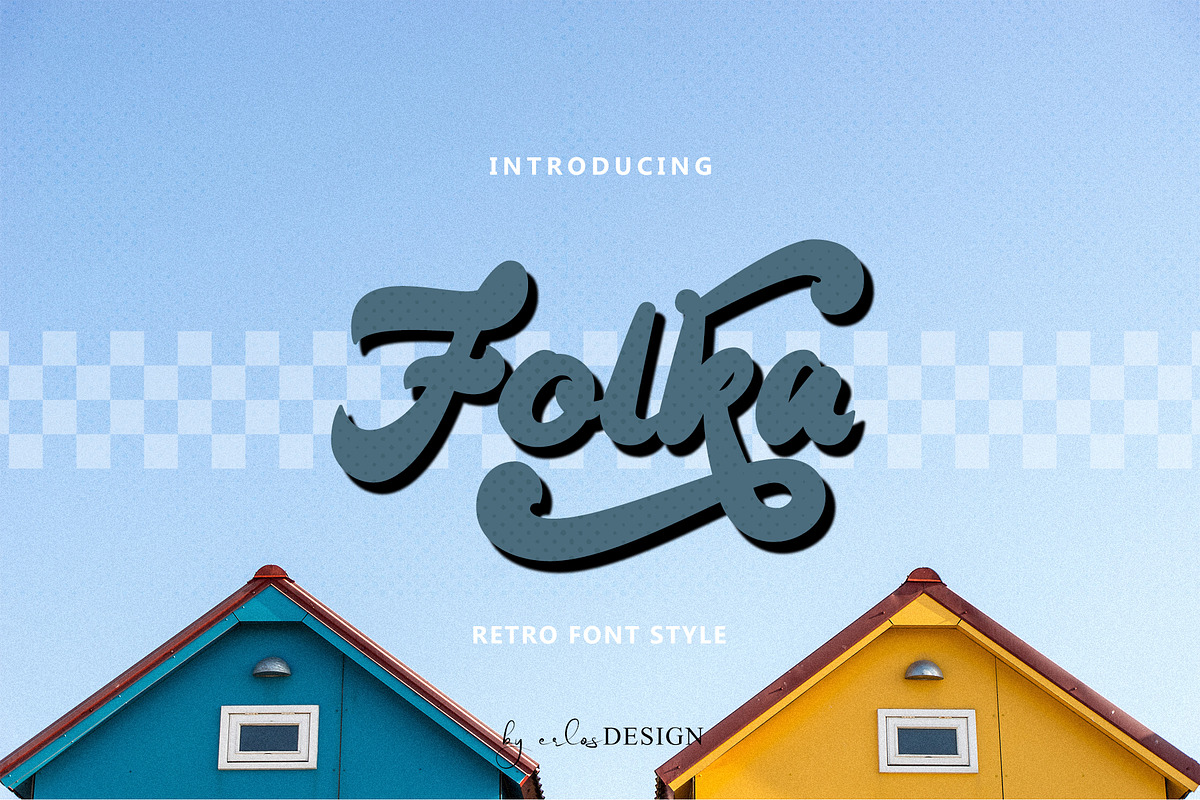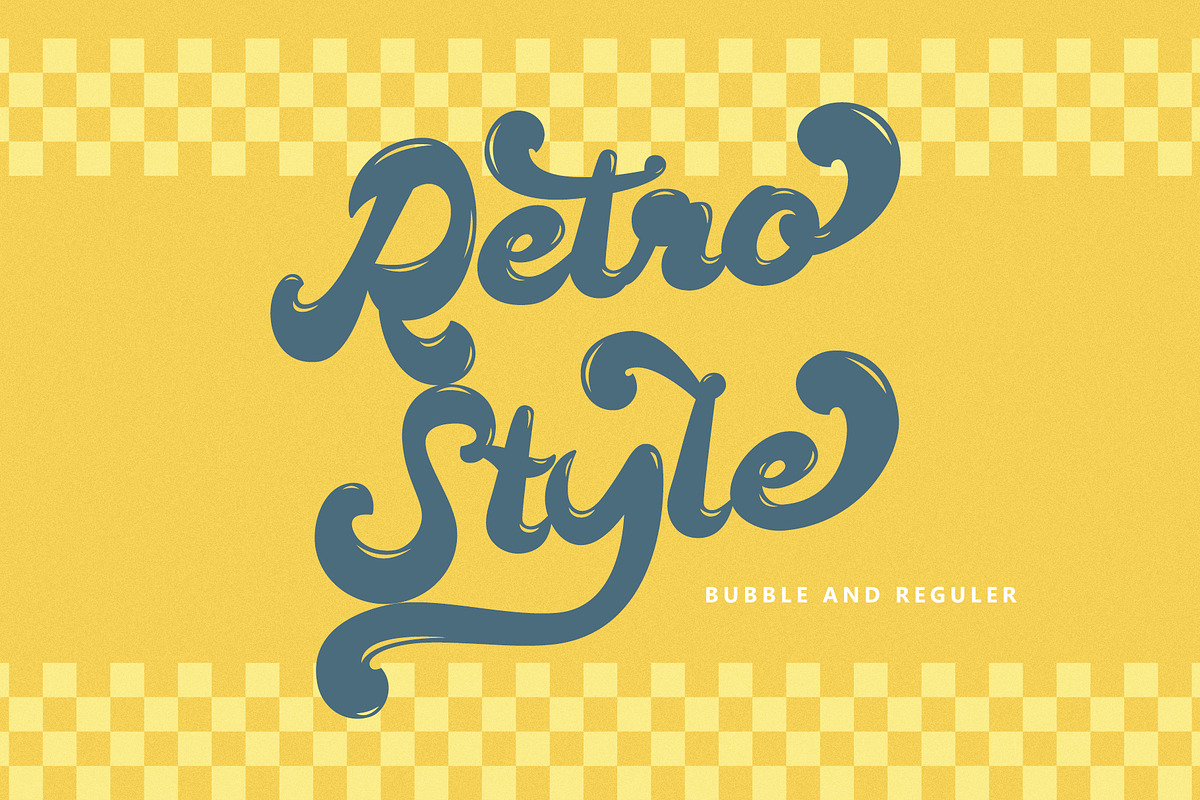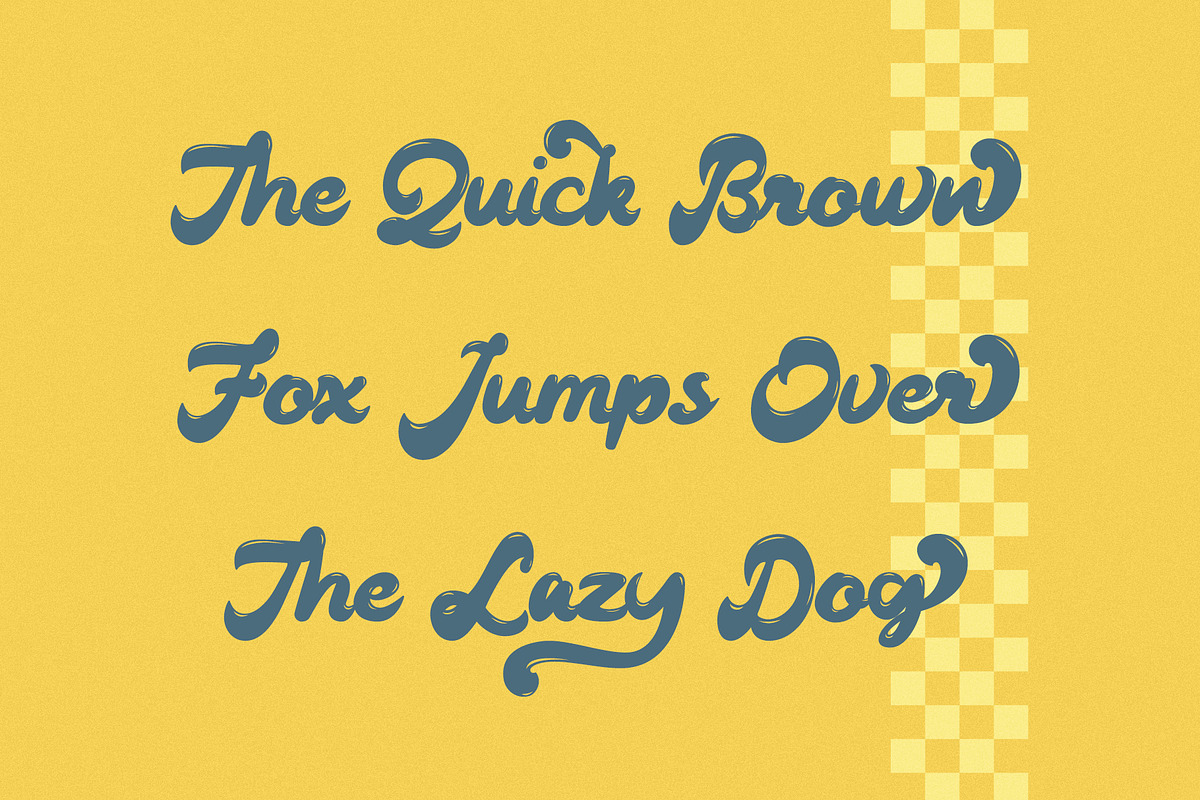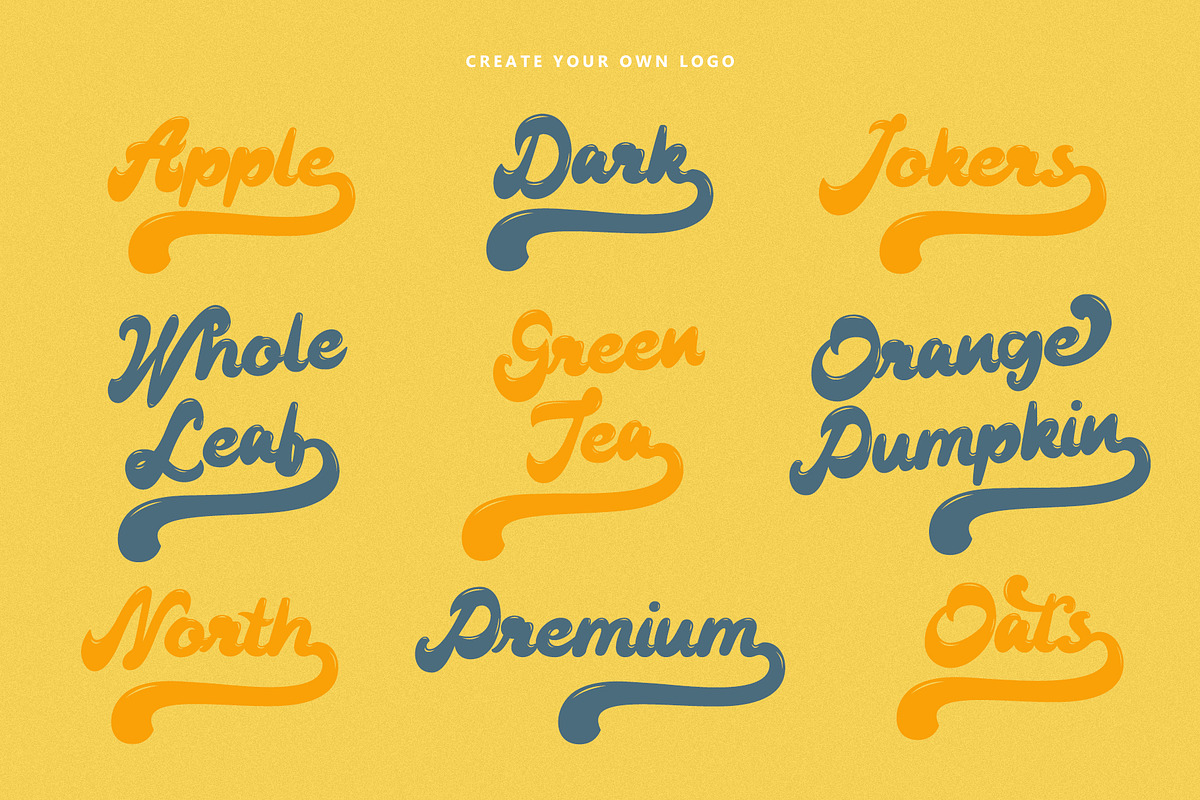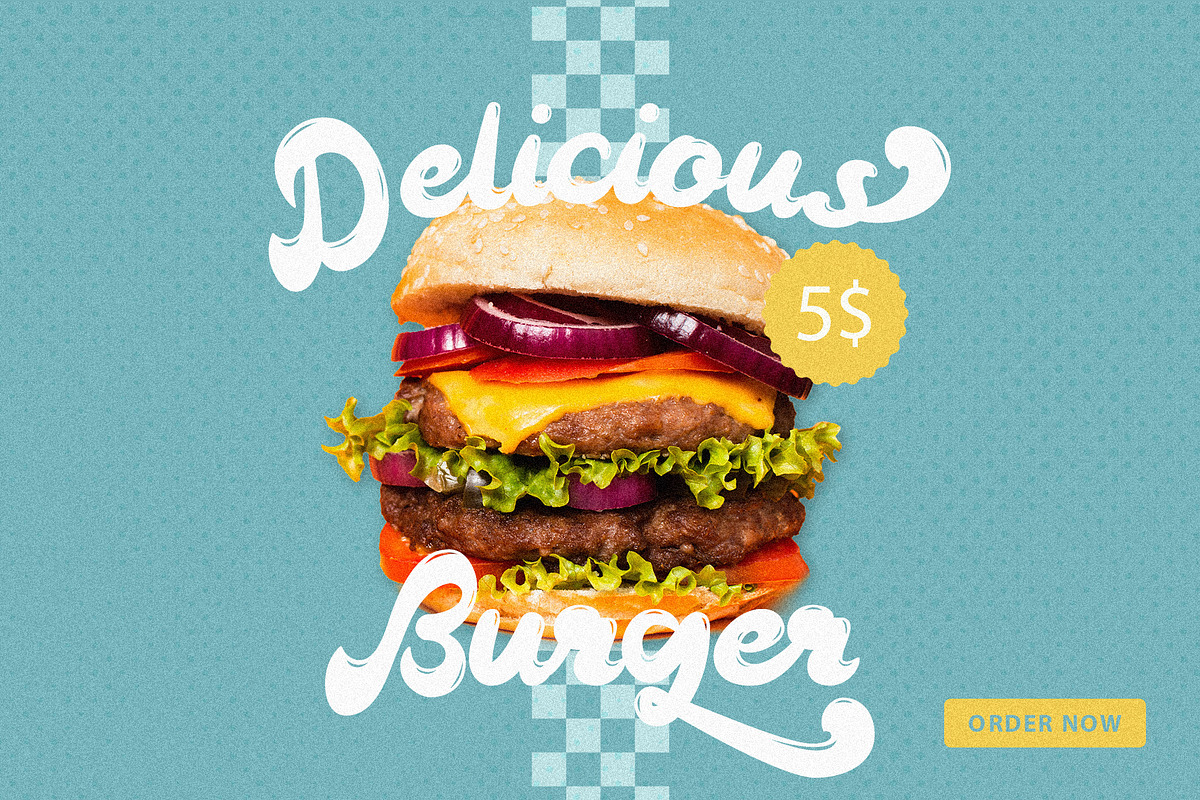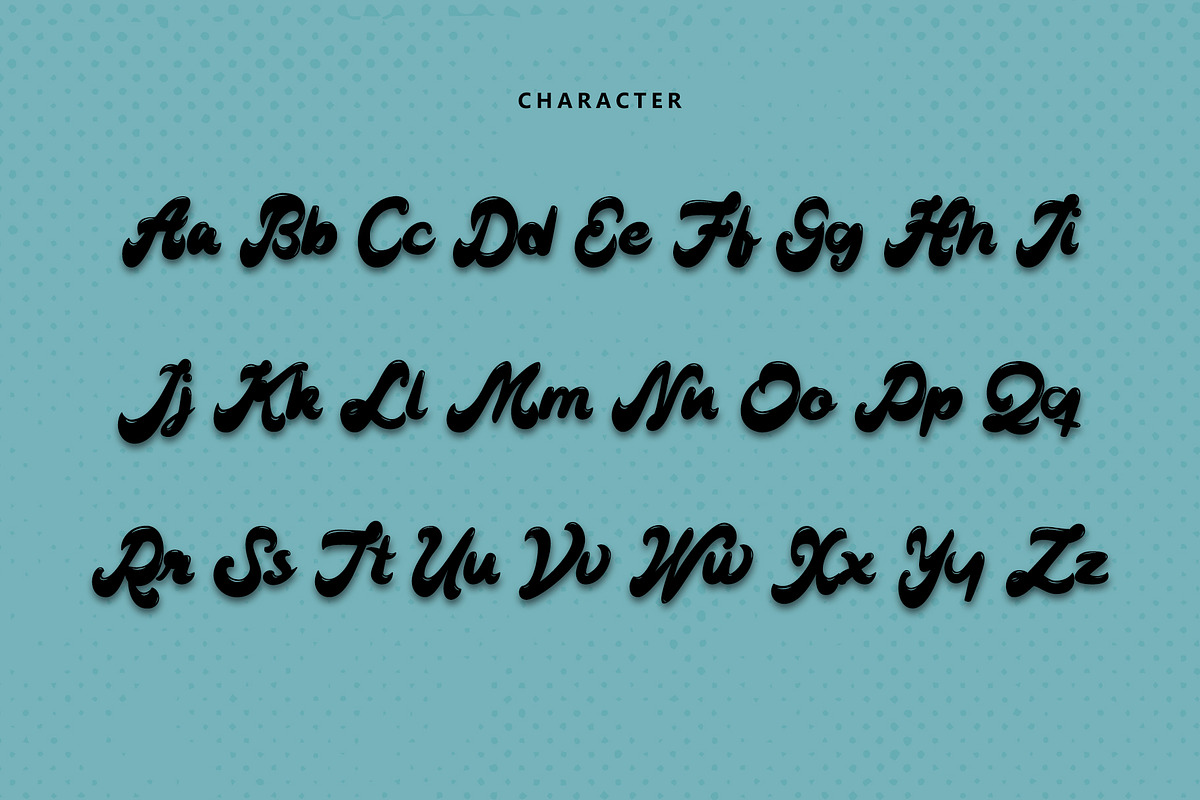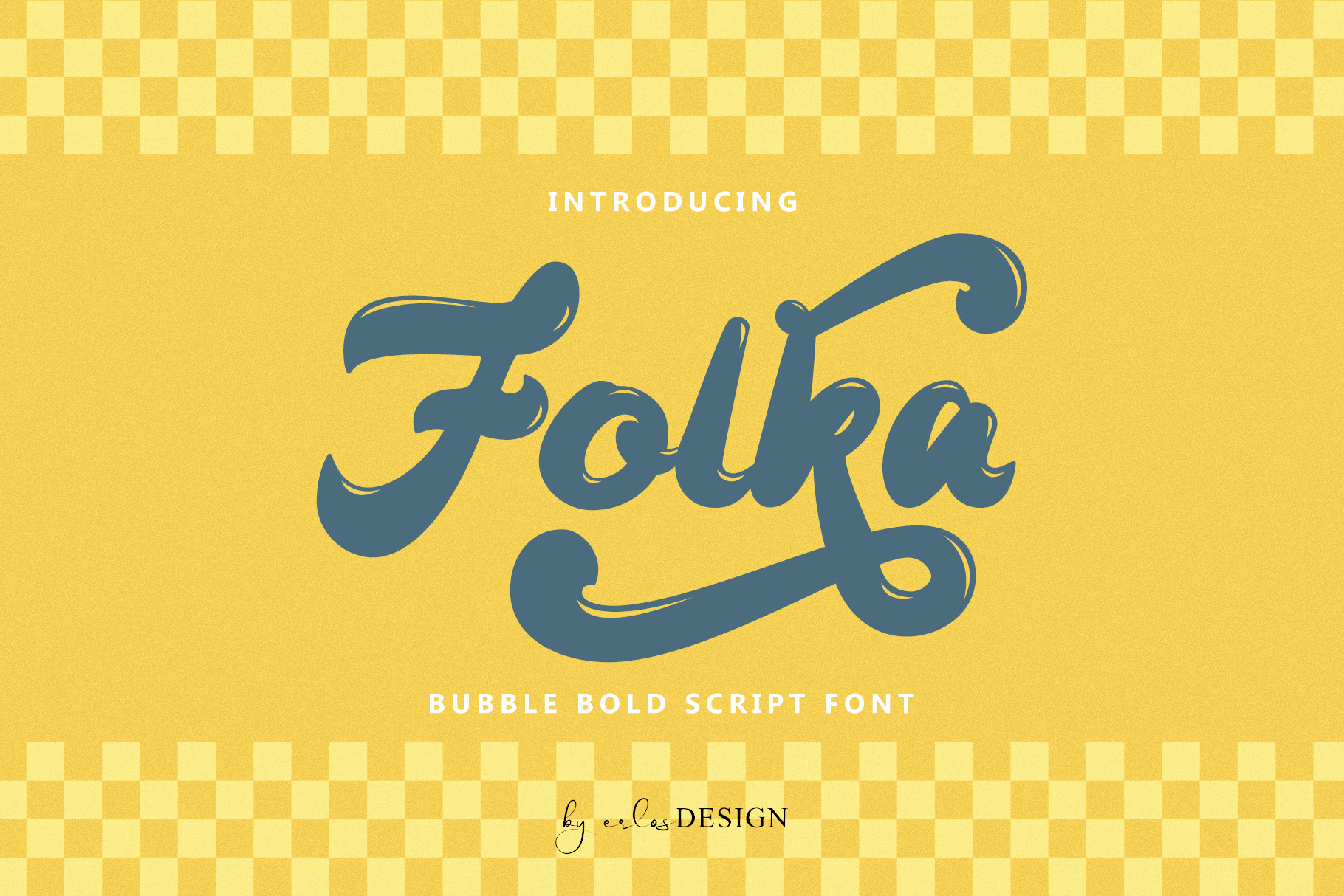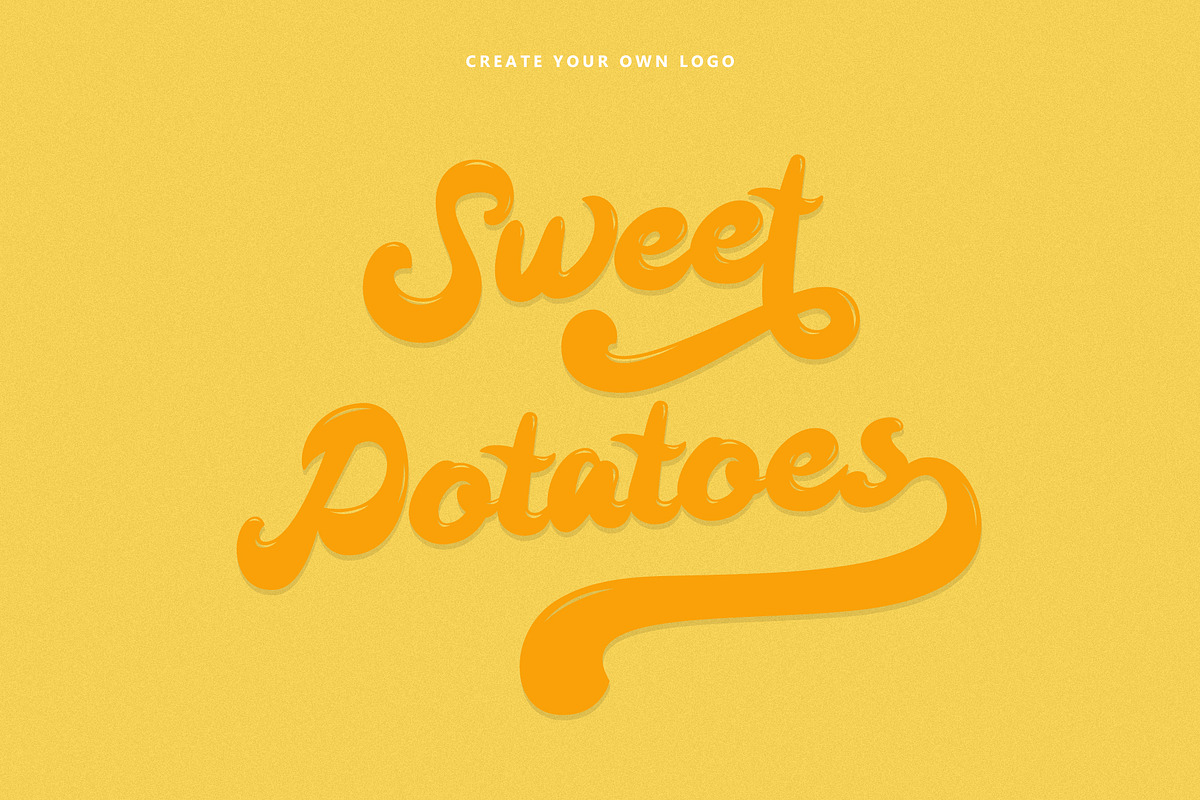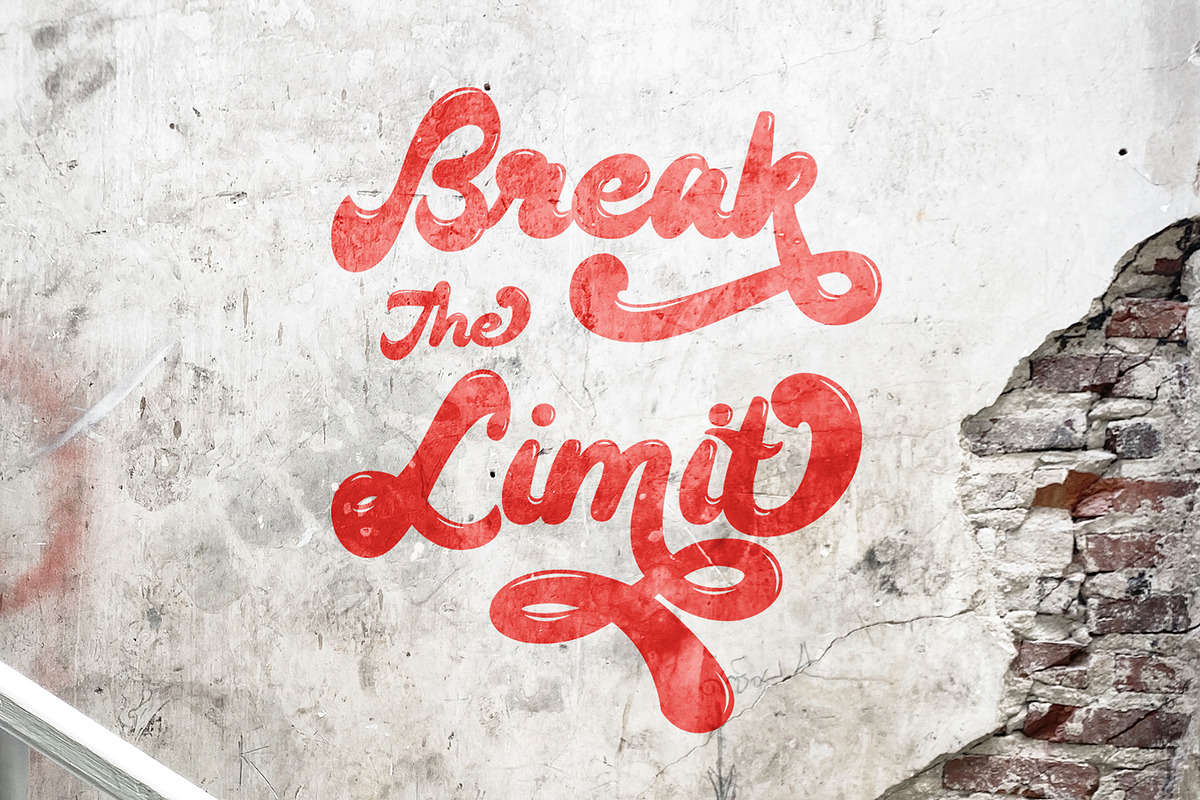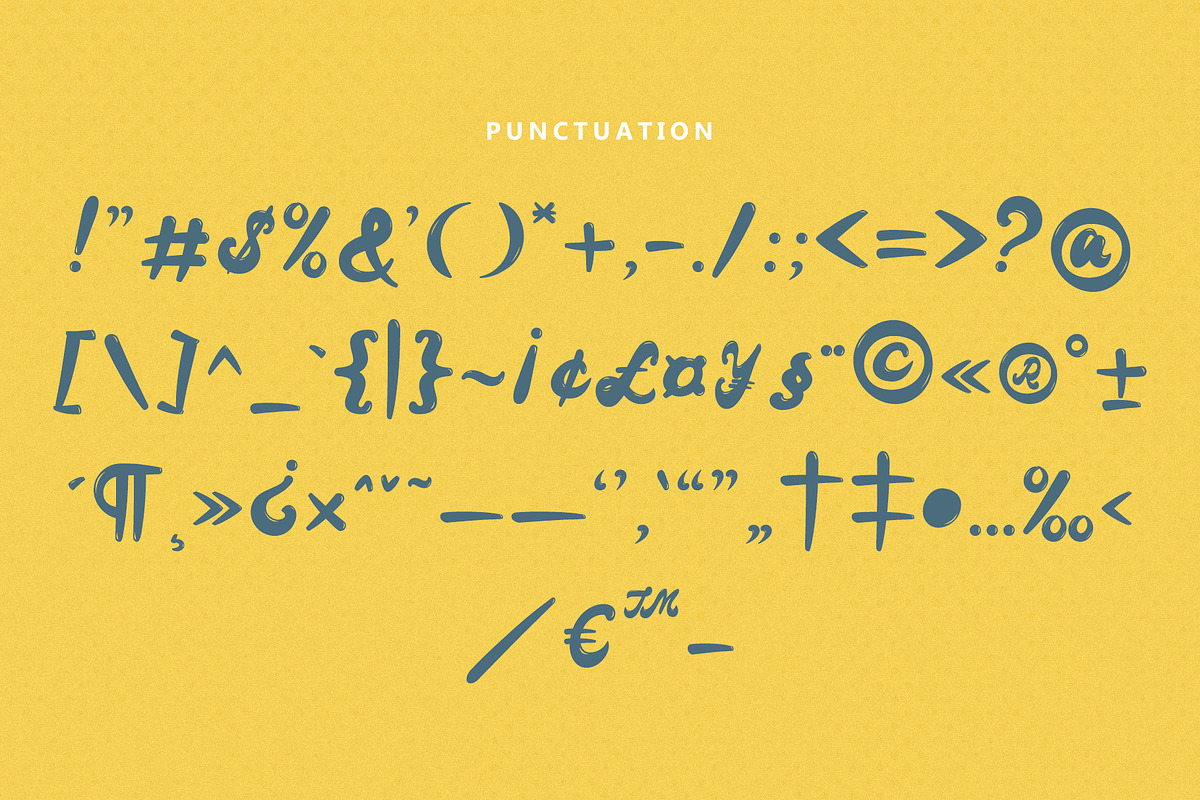
Folka - Bubble Script Font
Folka - Bubble Bold Script Font by erlosDESIGN
Folka is a fun and bubbly display font. Whether you are using it for cartoon-related designs, children’s games, quotes, titles, brand names, book covers, posters, or just any creation that requires a touch of beauty, this font is a great choice.